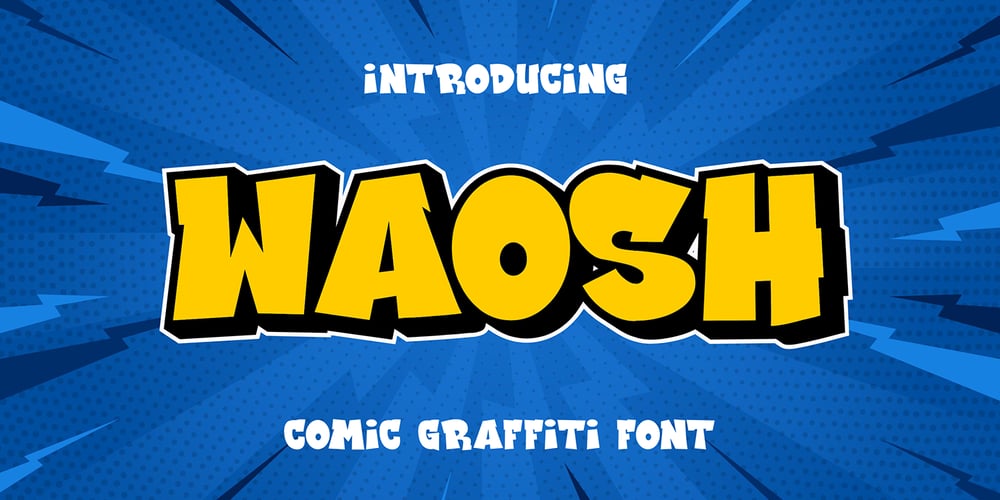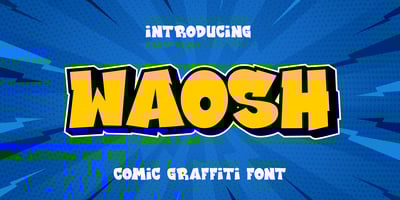
Waosh 3d Comic Font Family was designed by Sipanji and published by Sipanji21. Waosh 3d Comic contains 2 styles and family package options. “Waosh” is a bold and dynamic thick 3D layered comic font that brings a playful and vibrant touch to any design. Its layered structure allows for a striking 3D effect, adding depth and visual interest to your text. Perfect for comic books, playful posters, children’s books, and any project that needs a fun and engaging typographic style, “Waosh” makes your designs stand out with its energetic and captivating presence.